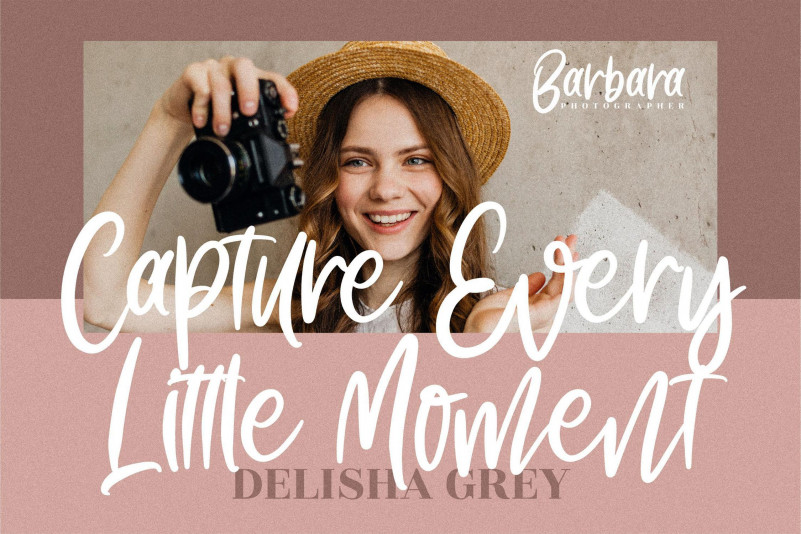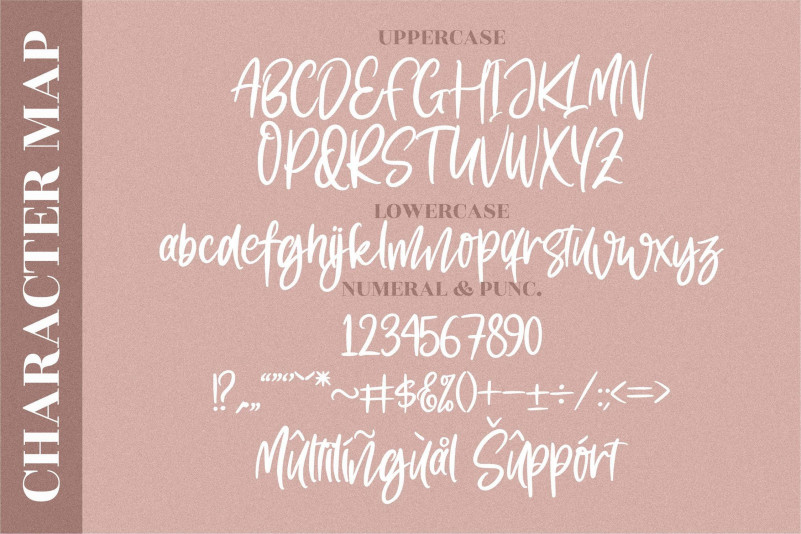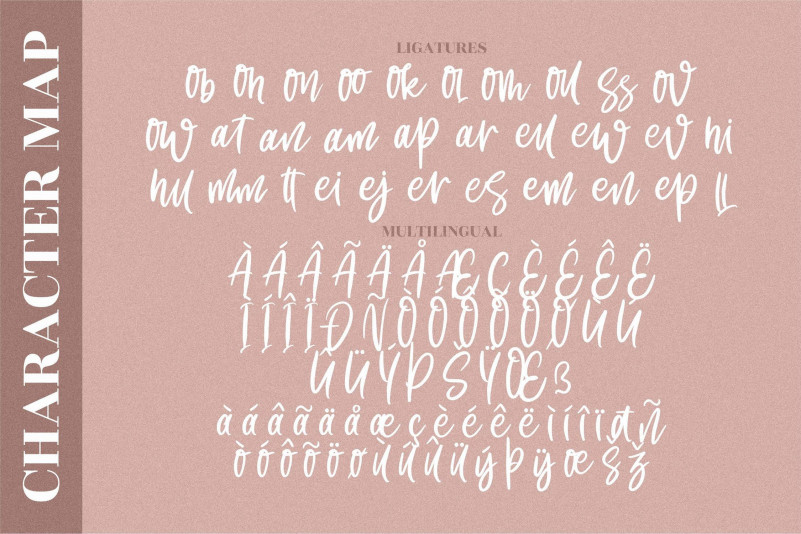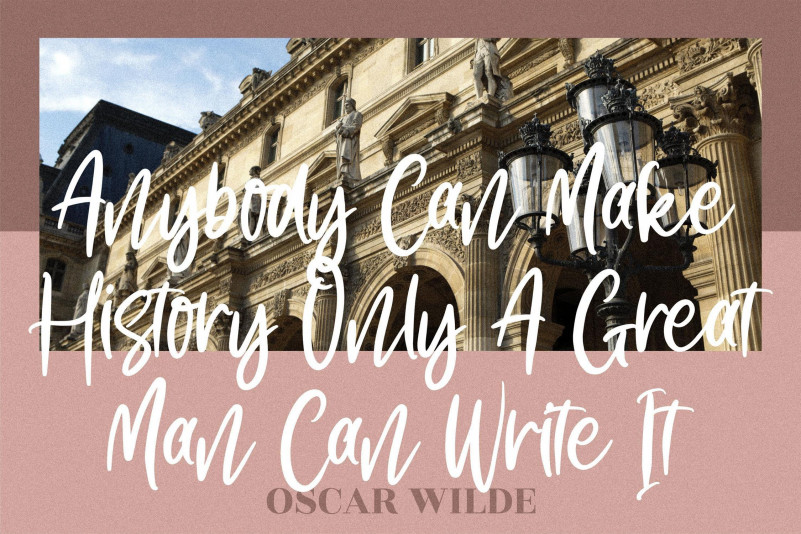
Menttari Sparkle Font
Menttari Sparkle Script Font
This is a chic, relaxed brushed script font that emanates sophistication and elegance. Its stylish alternates and ligatures make this font the perfect match for any project.